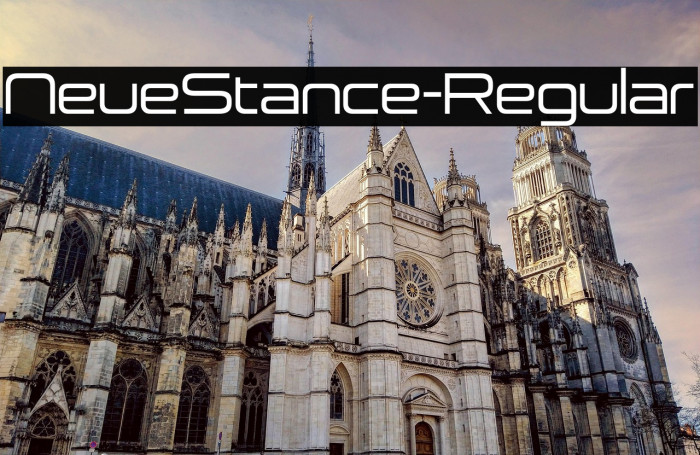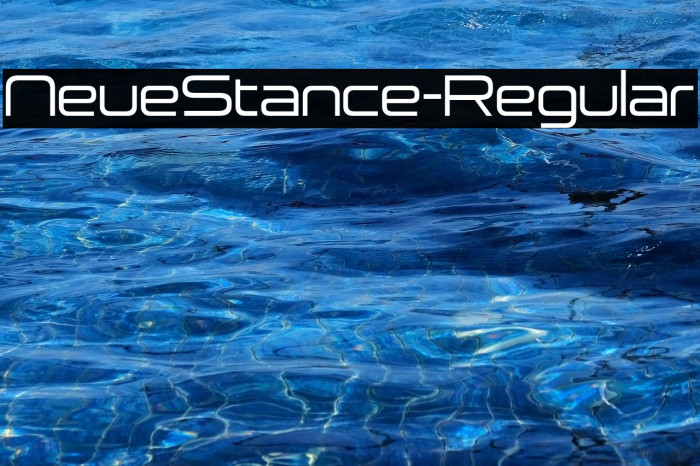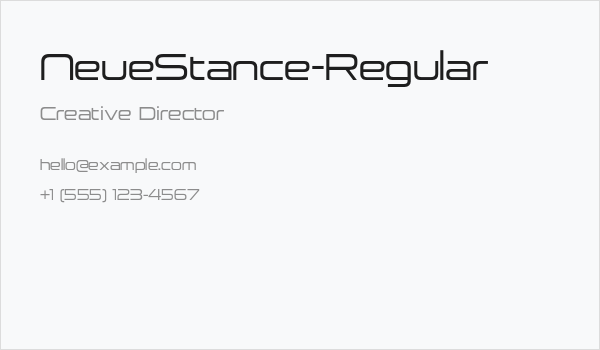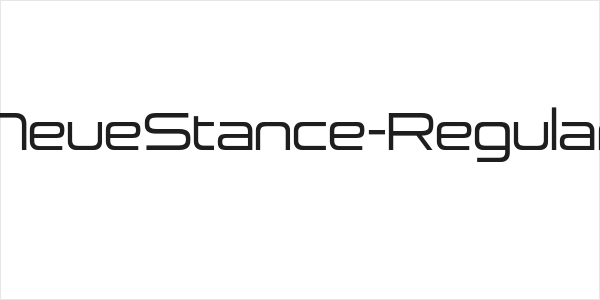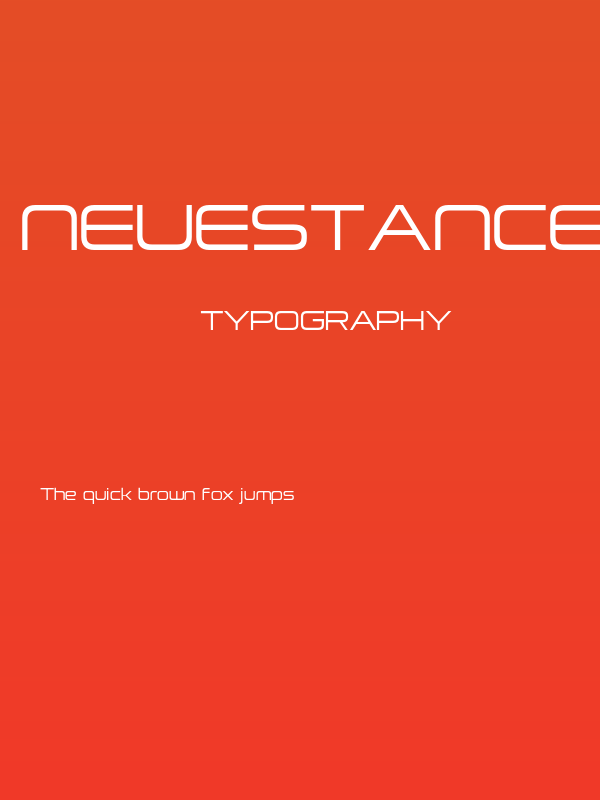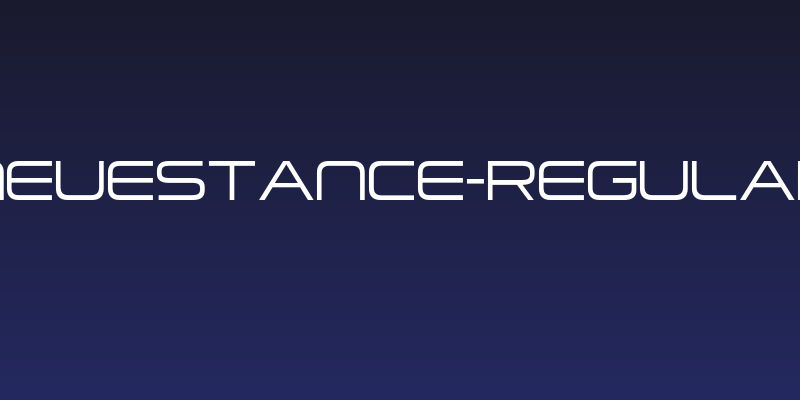
NeueStance-Regular Font
NeueStance-Regular Description
This font features a modern, geometric sans-serif design with a clean and streamlined appearance. The characters are constructed with consistent stroke widths, giving it a uniform and balanced look. The uppercase letters are slightly wider, while the lowercase letters maintain a more compact form. The numerals are clear and easily distinguishable, making them suitable for various applications. Special characters are well-integrated, maintaining the overall aesthetic. The font's simplicity and precision make it versatile for both digital and print media.
| Proposed Projects | Ideal for tech branding, digital interfaces, modern advertising, and minimalist design projects. |